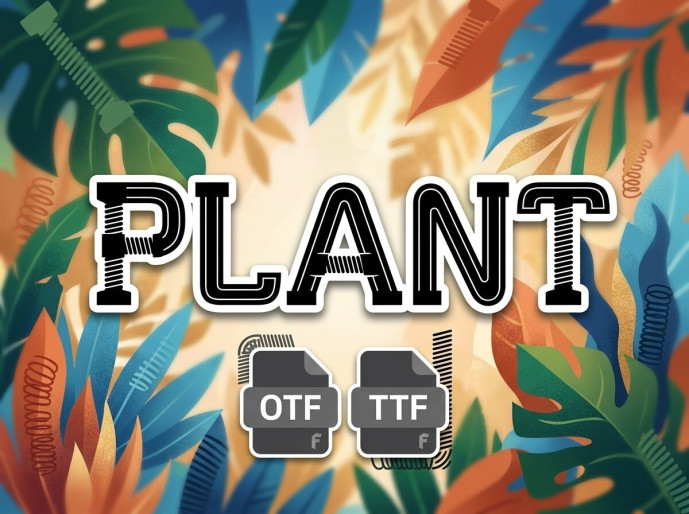
Build a bold, industrial aesthetic with PLANT, a unique display font featuring detailed threaded screws, mechanical bolts, and industrial hardware integrated into every letterform! Designed with crisp inline details and strong geometric structures, this font captures a heavy-duty, engineered look.
Whether you’re creating hardware store branding, machinery logos, construction posters, DIY craft graphics, or industrial apparel, PLANT delivers a strong, mechanical presence that instantly stands out.